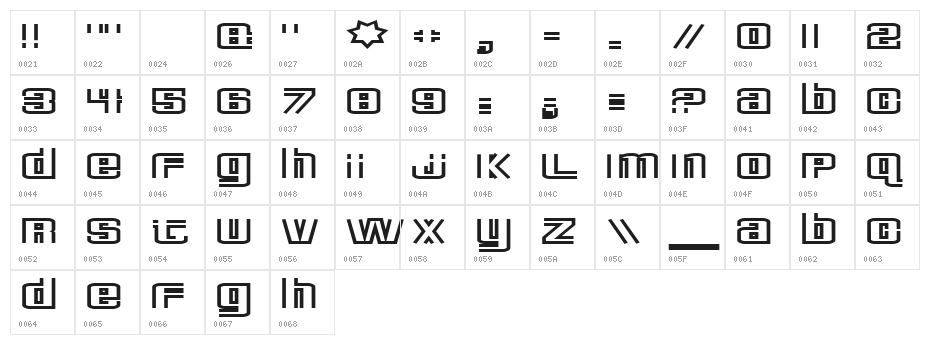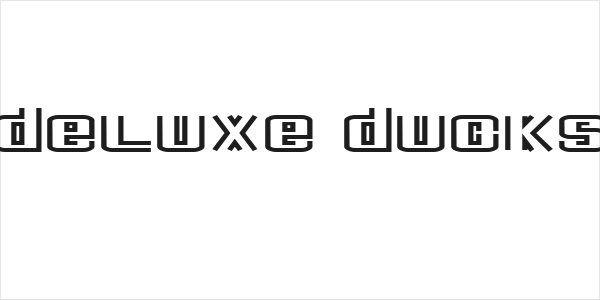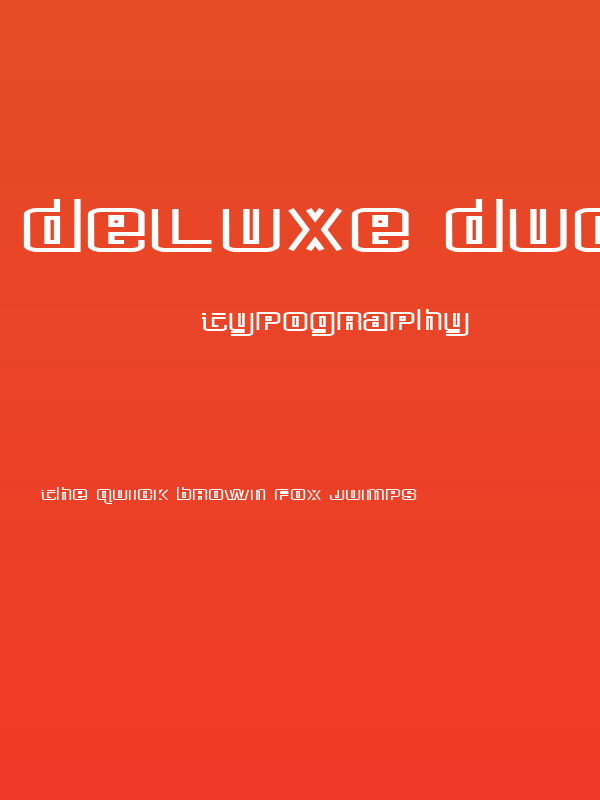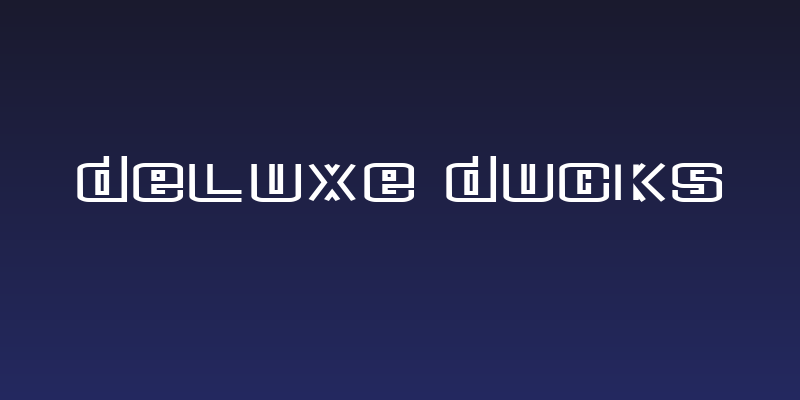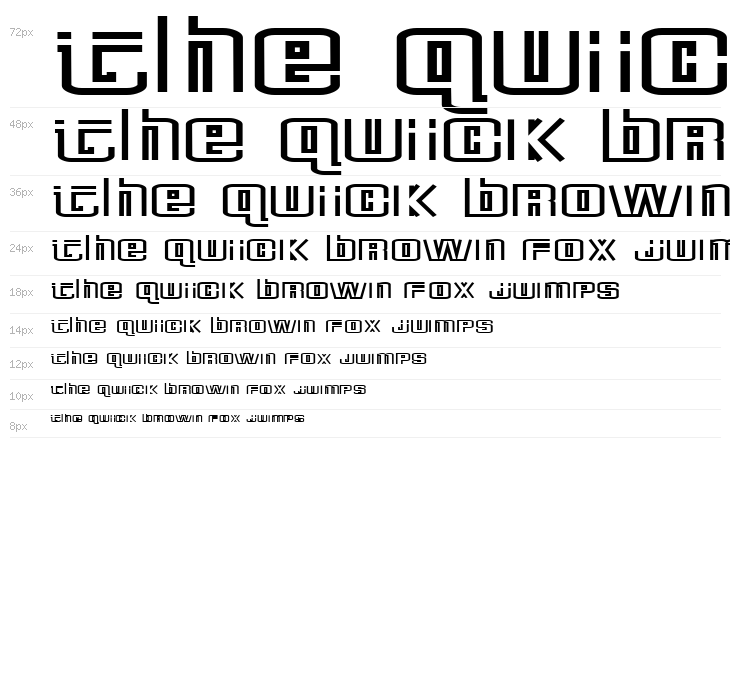
Deluxe Ducks Font
Deluxe Ducks Description
This font features a bold, geometric design with a futuristic and industrial feel. The characters are constructed with thick lines and sharp angles, creating a sense of strength and modernity. The uppercase and lowercase letters maintain a consistent style, with unique cutouts and inline details that add depth and interest. The numerals and special characters follow the same design principles, ensuring a cohesive look across all text elements. This font is ideal for projects that require a strong visual impact and a contemporary aesthetic.